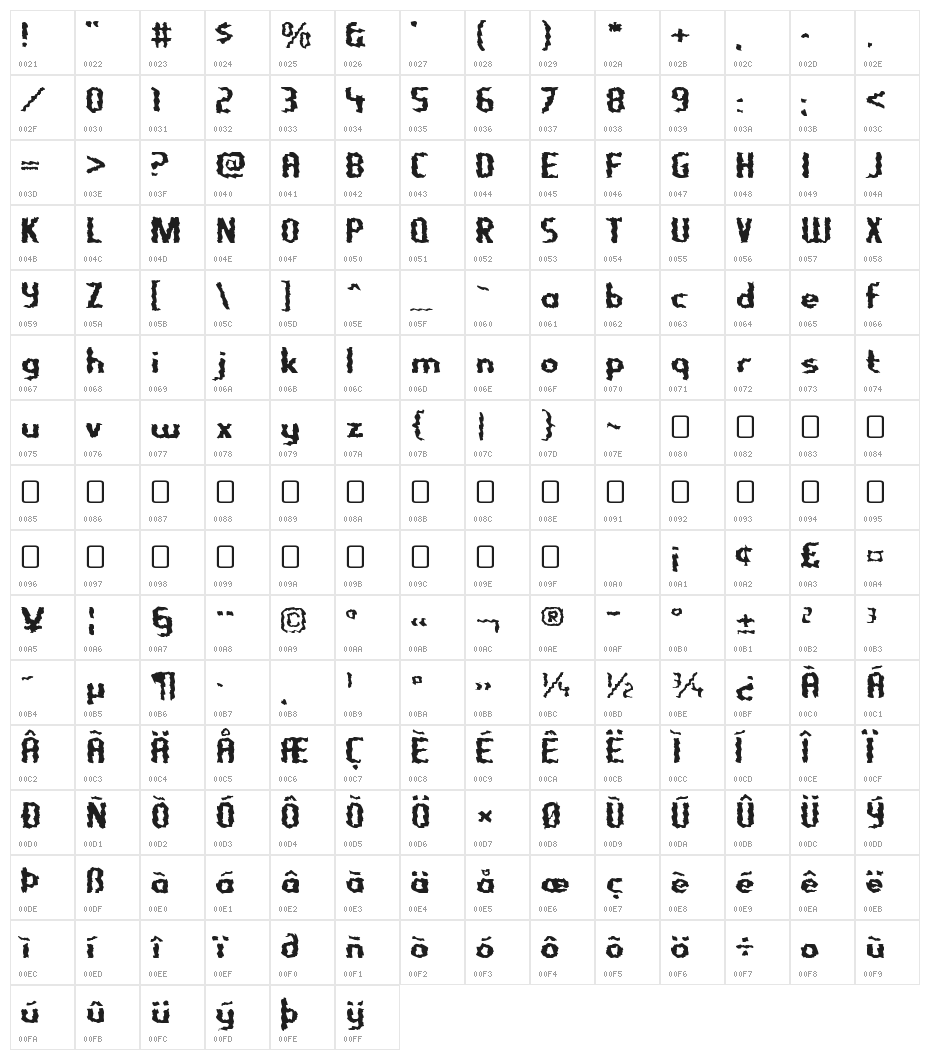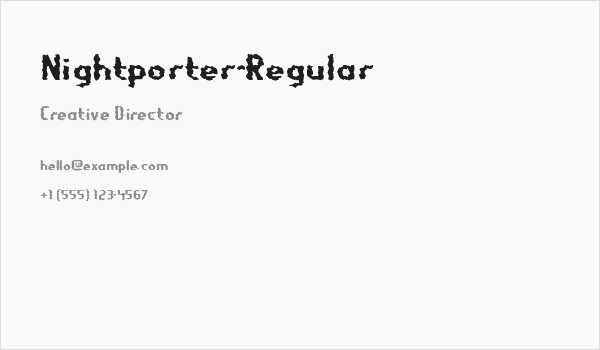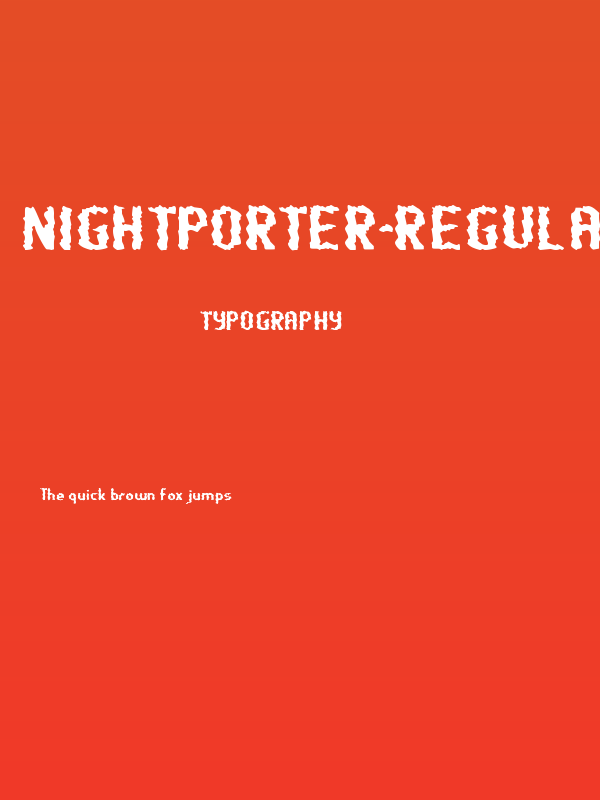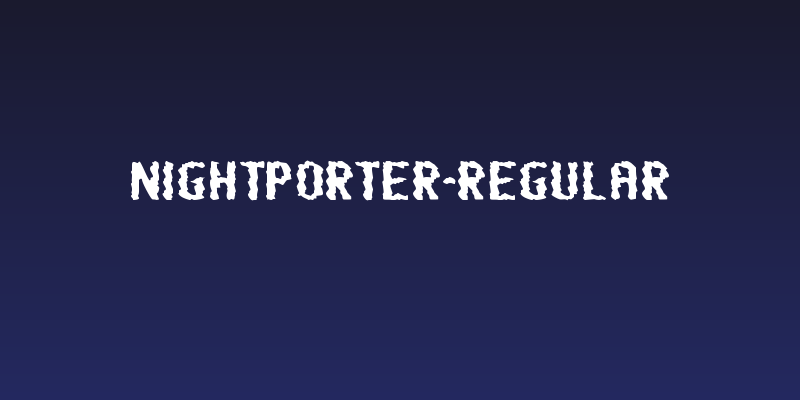
Nightporter-Regular Font
✎ Distorted Eroded
| Proyectos propuestos | Ideal for horror-themed posters, album covers, edgy branding, or any project requiring a gritty, mysterious aesthetic. |